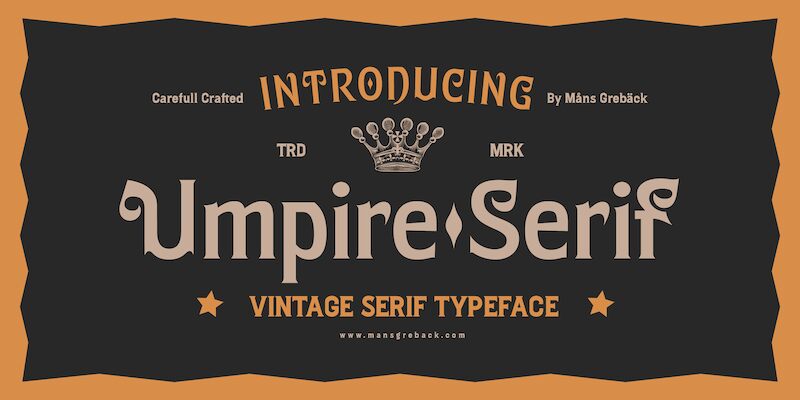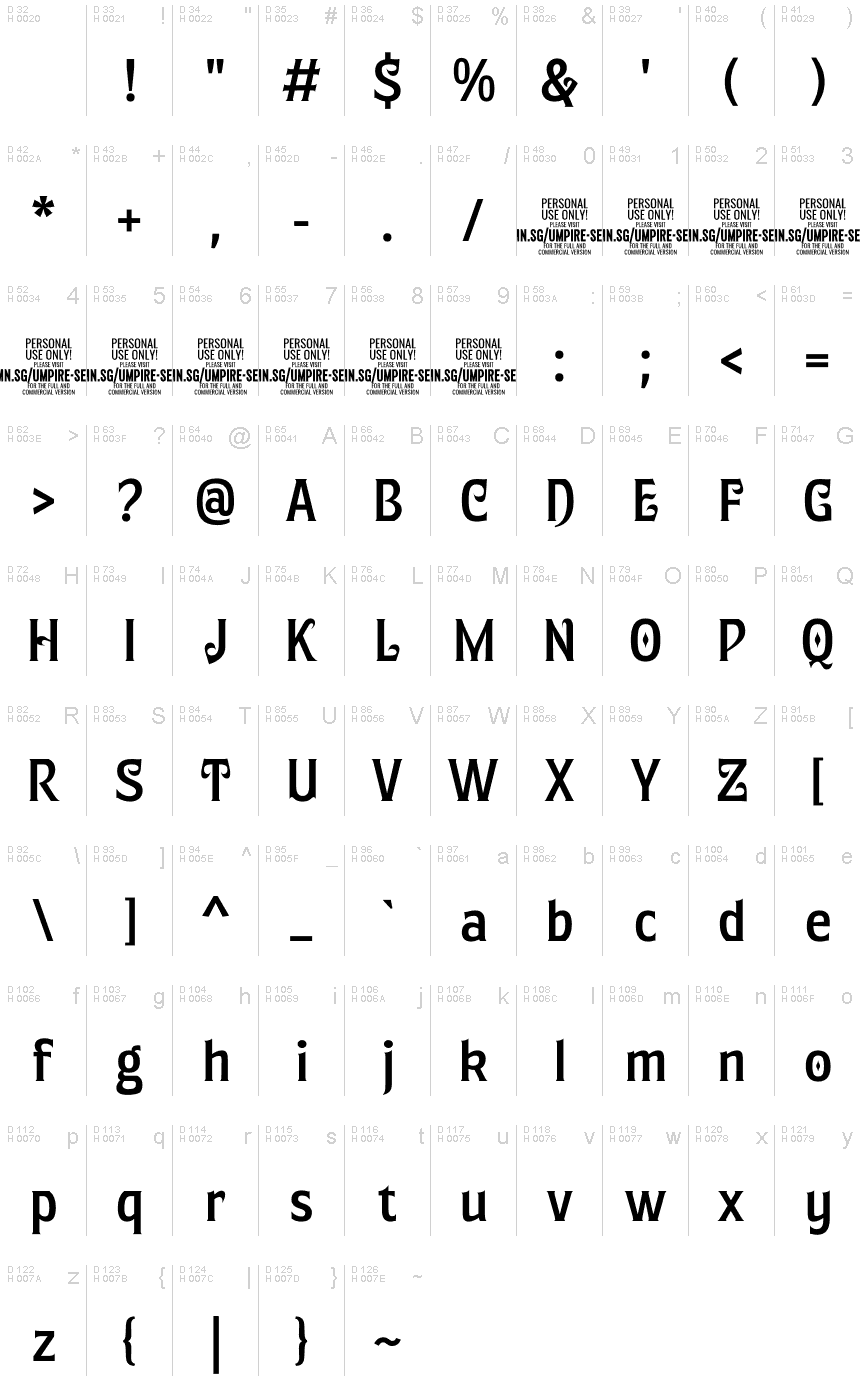
Umpire Serif is a retro serif display font designed by Mans Greback. This typeface is perfect for projects that require a touch of Victorian grandeur and a regal aesthetic. With its heavy and solid foundation, Umpire Serif exudes confidence and commands respect. Its swash flourishes add an aristocratic elegance, while the clean letters convey uncompromised authority. Suitable for a wide range of projects, this font is both decorative and steadfast.
Whether you're designing vintage-inspired logos, elegant invitations, or sophisticated packaging, Umpire Serif will elevate your work to new heights. With advanced OpenType functionality and extensive lingual support, this font offers full control and customizability in all Latin-based languages.
Experience the parade of pomp with Umpire Serif's guaranteed top-notch quality and comprehensive character set.